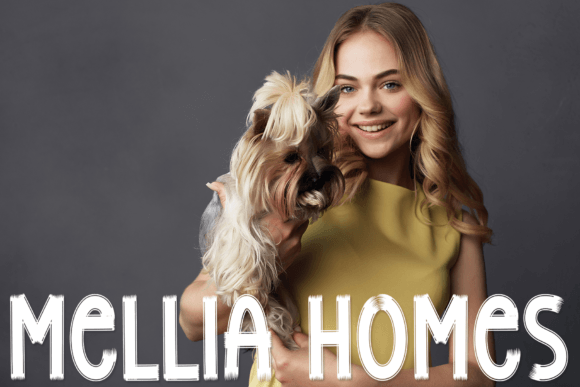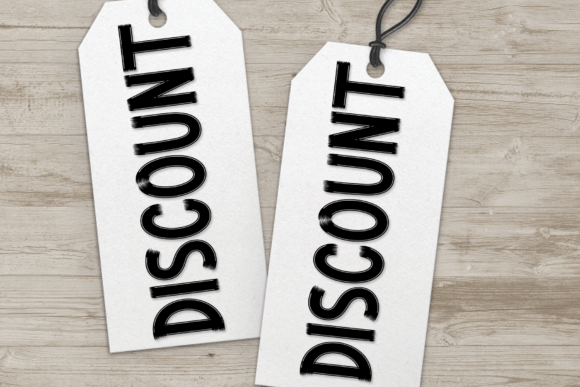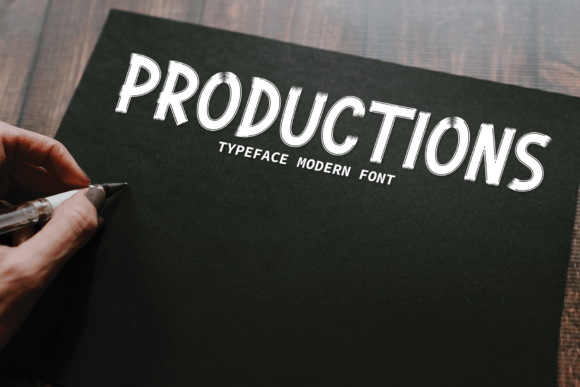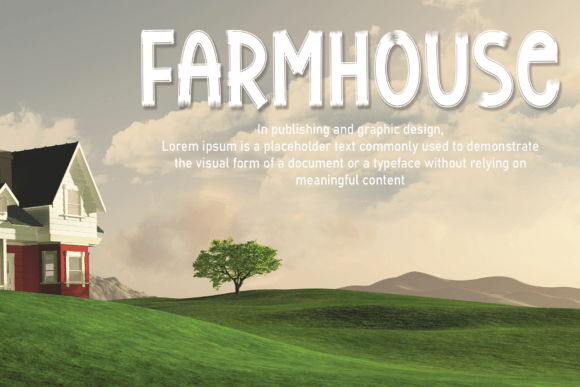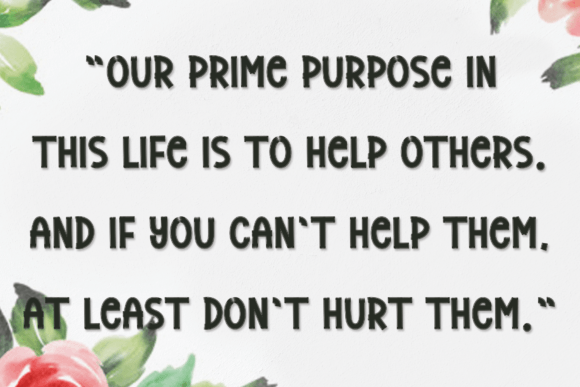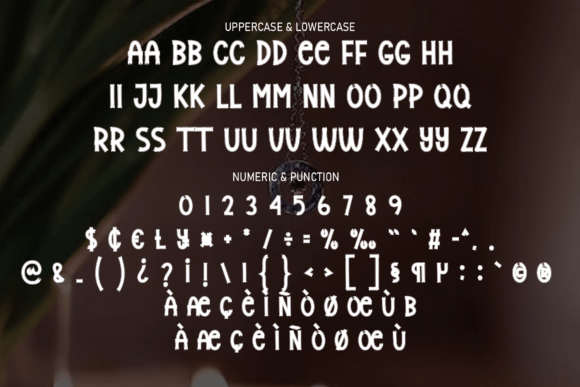
Introduction to Liontin Font
Have you ever stared at a blank page, waiting for inspiration to strike? Maybe you’re working on a creative project, and the right font is the missing piece that’s holding everything together. That’s where the Liontin Font comes in – a game-changing design resource that’s about to elevate your work to the next level.
This stylish font is perfect for designers who crave high-quality typography that’s both elegant and versatile. Whether you’re working on a wedding invitation, a social media post, or a product label, the Liontin Font is sure to add a touch of sophistication and flair. With its transparent background and beautifully crafted letters, this font is the perfect addition to any creative project.
Key Features of Liontin Font
- High-quality design resource ideal for creative projects, offering a sophisticated and elegant look.
- Transparent background, providing flexibility for designers to customize and layer the font as needed.
- High-resolution design, suitable for use in print and digital media, ensuring crisp and clear display.
- Unique and stylish design, setting it apart from other fonts and making it a valuable addition to any design collection.
- Perfect for use in logos, branding, and other creative projects where a touch of sophistication is required.
Honest Review: Liontin Font
I recently stumbled upon the Liontin Font and was blown away by its sleek design and versatility. As a designer, I’m always on the lookout for high-quality resources to enhance my creative projects. The Liontin Font definitely delivers.
- Wide range of styles and weights to choose from
However, I did encounter a few limitations: ⚠️ The font’s versatility also makes it a bit overwhelming to navigate, with so many options available. Additionally, the lack of extensive documentation can make it difficult for beginners to get started.
Overall, I’m impressed with the Liontin Font. Its high-quality design and flexible features make it a valuable addition to any designer’s toolkit. With a bit of practice, I’m confident that even beginners can unlock its full potential.
The Liontin Font is a versatile design resource that can be used in a variety of creative projects, including logos, brochures, and social media graphics. Its high-quality design and transparent background make it a great choice for any project that requires a professional look.